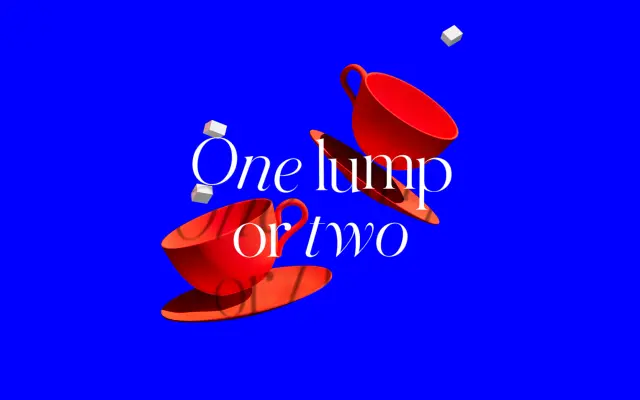
F37 Britain Serif
The transitional serif within the F37 Britain collection, running across four weights with matching italics.
A transitional serif drawn for the F37 Britain collection. Eight styles cover four weights from Light to Bold with matching italics, giving it room for book text and editorial display. Reads as a calmer, more workmanlike serif than Britain Scotch, useful when the Scotch's high contrast feels too dramatic.
F37 classify F37 Britain Serif as a transitional serif within the F37 Britain collection. It sits between the Scotch and Slab cuts: bracketed serifs, moderate contrast, drawn to read at both text and display sizes.